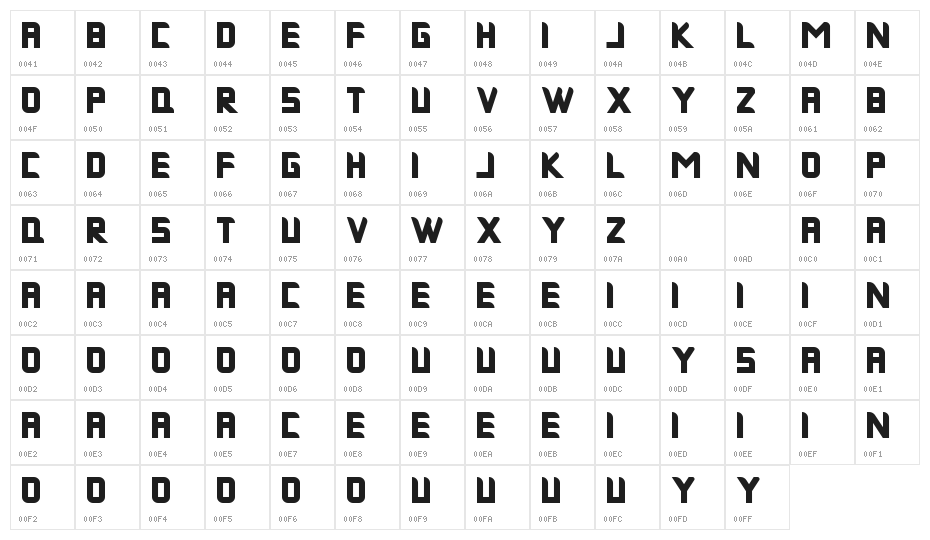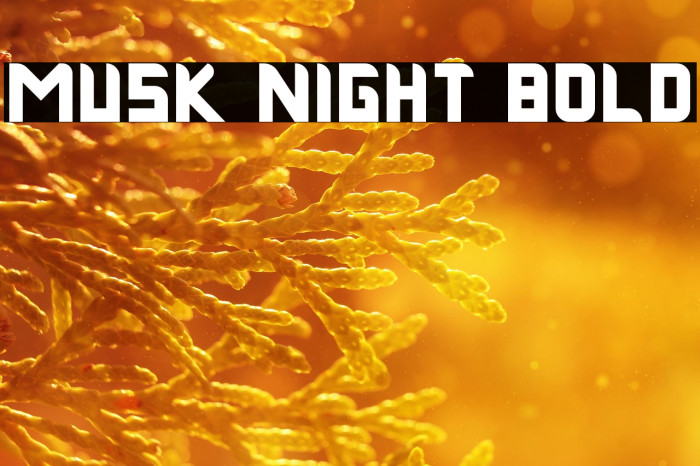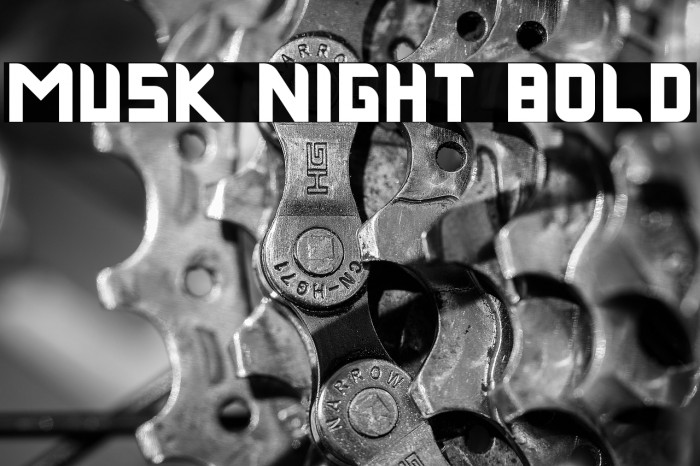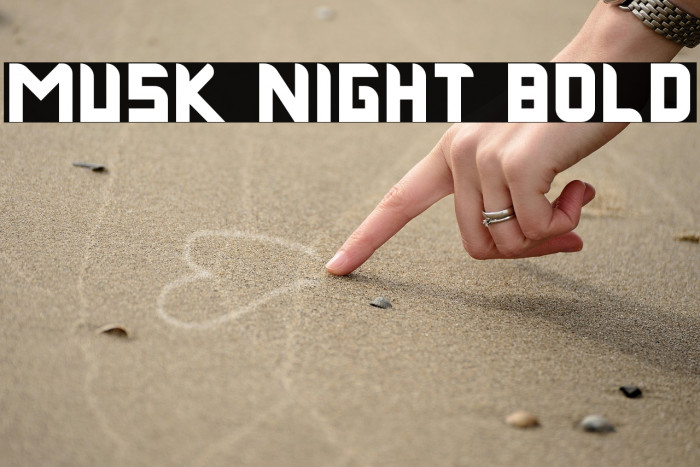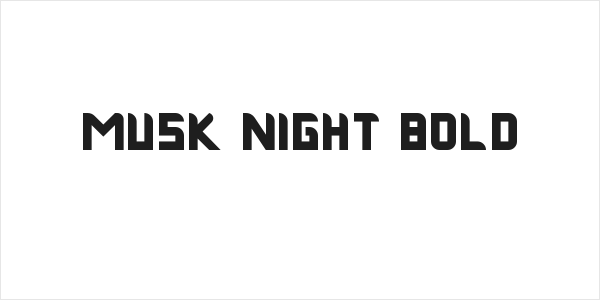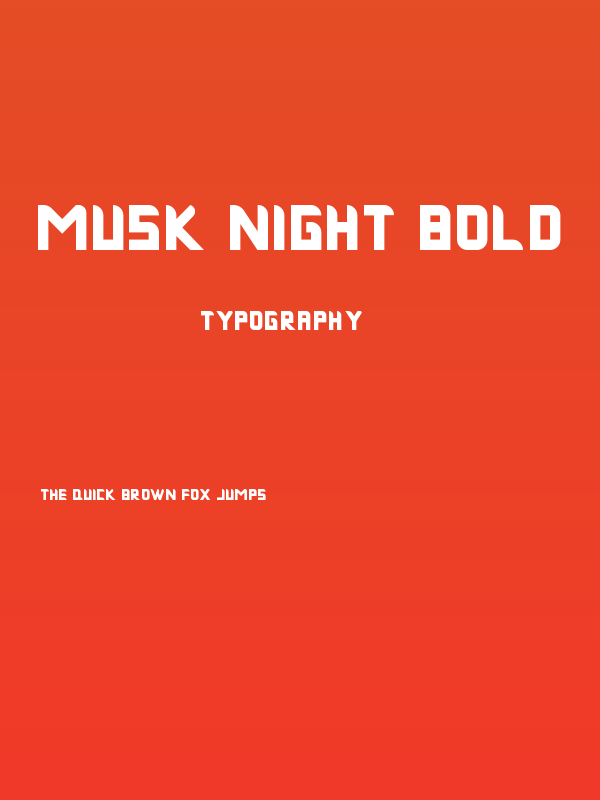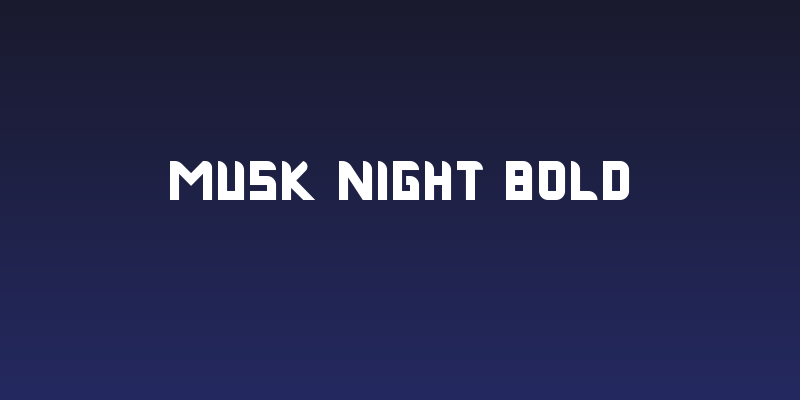
Musk Night Bold Font
This font features a bold and geometric style with a modern touch. The characters are constructed with straight lines and sharp angles, giving it a futuristic and industrial appearance. The uppercase letters are uniform in height, while the lowercase letters maintain a consistent style, enhancing readability. The numbers and special characters follow the same design principles, ensuring a cohesive look across all glyphs. The font's boldness makes it stand out, suitable for attention-grabbing headlines and impactful designs.
Proposed ProjectsIdeal for branding, posters, headlines, and digital media where a strong, modern presence is desired.